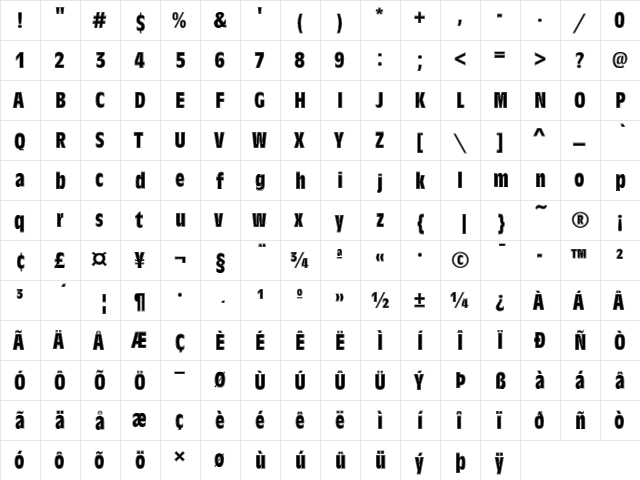
Antique Olive T In1 Regular
Design Context for Antique Olive T In1 Typeface
Antique Olive T In1 wears its vintage influences proudly, with letterforms that recall mid-century signage, classic packaging, and nostalgia-driven design.
Ideal for diner signage, record shop branding, 70s/80s-themed projects, and heritage product labels.
Font Pairing: Combine Antique Olive T In1 with a simple slab or neutral sans — period-accurate companions reinforce the vintage feel without competing for attention.
Pro Tip: Lean into Antique Olive T In1's period character by pairing it with aged paper textures, muted colour palettes, and vintage illustration styles.